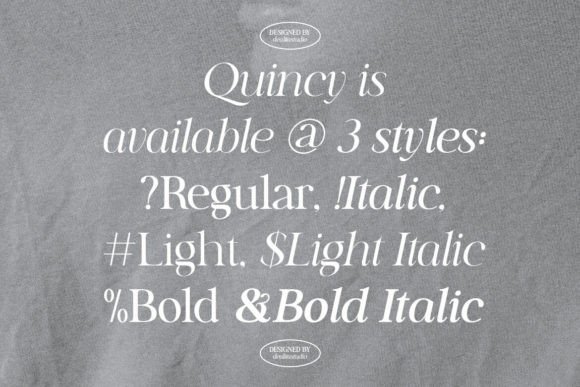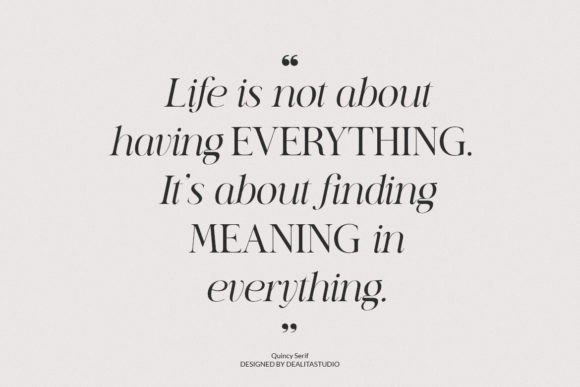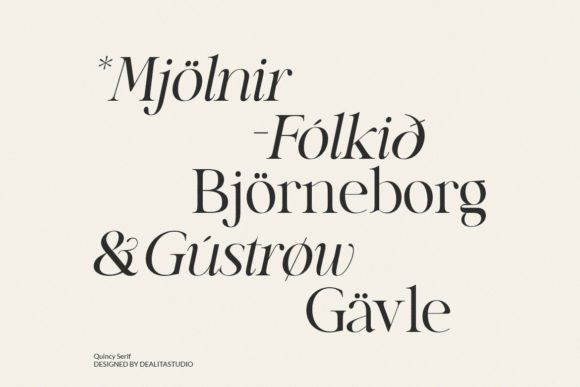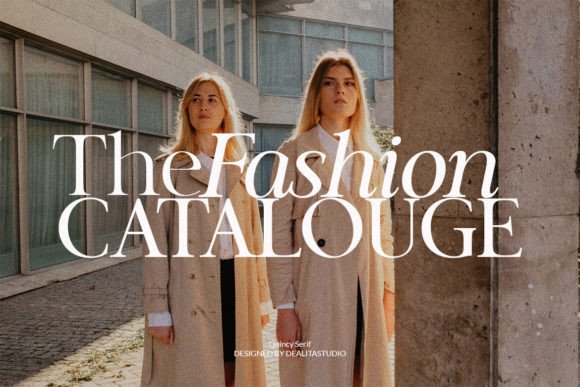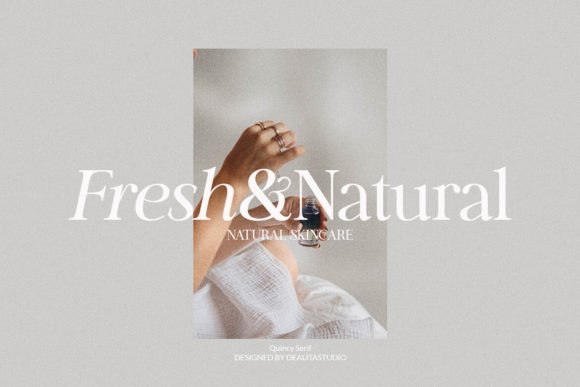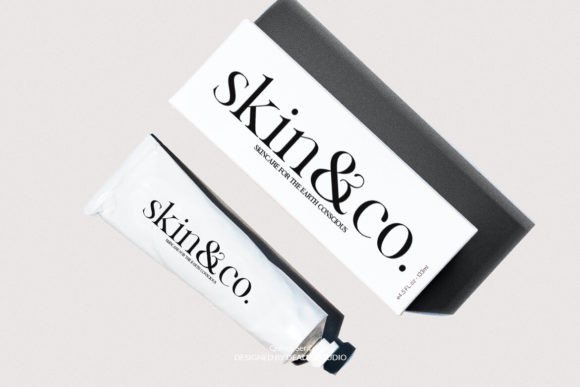
Introduction to Quincy Memories Font
Quincy Memories is a Beautiful serif typeface With Italics.
Ideally to be applied to other various formal forms such as invitations, labels, logos, magazines, books, greeting/wedding cards, packaging, fashion, makeup, stationery, novels, labels or any advertising purpose .